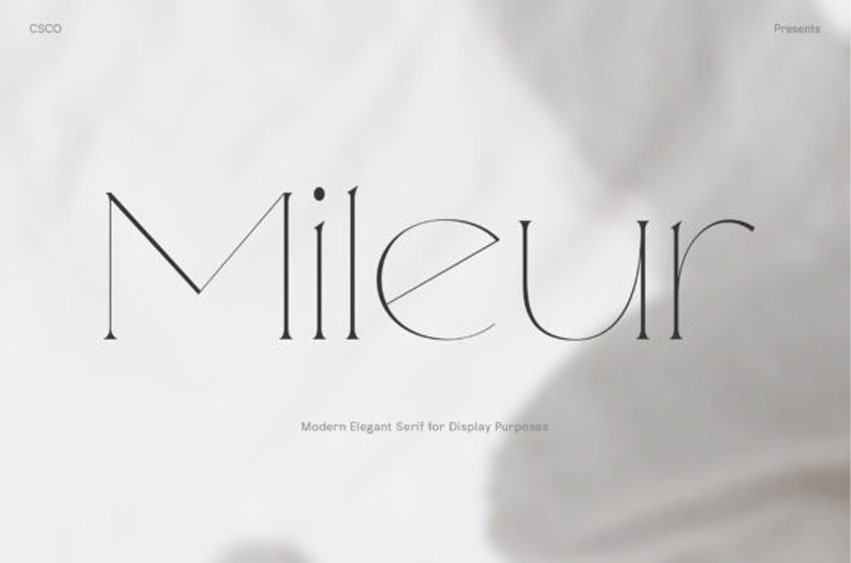
Mileur Font is a thin lettered and simple serif font. It will look stunning on any poster, flyer or print.
Use this font for your designs and explore its endless possibilities.